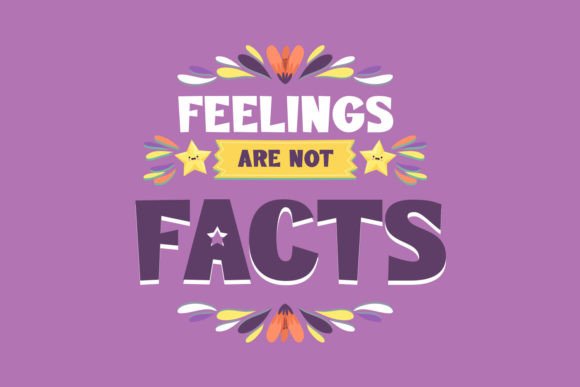
Introducing Triple Disco Font: The Ultimate Display Font for Bold Statements
In the world of typography, fonts play a crucial role in conveying messages and making a lasting impression. When it comes to making a bold statement, a dynamic display font is essential. This is where Triple Disco Font comes into play. Designed specifically in uppercases, Triple Disco is a powerful and confident font that exudes impact and authority. In this article, we will explore the features and benefits of Triple Disco Font and why it’s the perfect choice for your next design project.
The Power of Triple Disco Font
Triple Disco Font is a bold and dynamic display font that is designed to make a statement. Its bold weight and confident demeanor make it perfect for headlines, titles, and any other text that needs to stand out. Each letter in the font is carefully crafted to be distinct and prominent, ensuring that your message is conveyed with clarity and authority.
One of the key features of Triple Disco Font is its low contrast between the thick and thin strokes. This gives the font a solid and uniform appearance, making it perfect for use in a variety of design applications. Whether you’re creating a poster, brochure, or website, Triple Disco Font is sure to make a lasting impression.
Key Features of Triple Disco Font
- Bold and Dynamic Design: Triple Disco Font is designed to make a bold statement. Its bold weight and confident demeanor make it perfect for headlines and titles.
- Uppercase Design: The font is designed specifically in uppercases, making it perfect for use in titles, headings, and other applications where a bold and confident font is needed.
- Low Contrast: The low contrast between the thick and thin strokes gives the font a solid and uniform appearance, making it perfect for use in a variety of design applications.
- Clear and Authoritative: Each letter in the font is carefully crafted to be distinct and prominent, ensuring that your message is conveyed with clarity and authority.
Benefits of Using Triple Disco Font
There are many benefits to using Triple Disco Font in your design projects. Here are just a few:
- Makes a Lasting Impression: The bold and dynamic design of Triple Disco Font makes it perfect for use in headlines and titles, where you want to make a lasting impression on your audience.
- Perfect for a Variety of Design Applications: The font’s solid and uniform appearance makes it perfect for use in a variety of design applications, including posters, brochures, websites, and more.
- Easily Readable: Despite its bold design, Triple Disco Font is easily readable, even at small sizes.
- Versatile: The font’s confident and authoritative demeanor makes it perfect for use in a variety of contexts, from advertising and marketing to editorial and publishing.
How to Use Triple Disco Font
Using Triple Disco Font is easy. Here are a few tips to get you started:
- Use it for Headlines and Titles: The font’s bold and dynamic design makes it perfect for use in headlines and titles.
- Experiment with Different Sizes: The font’s clear and authoritative design makes it easily readable at a variety of sizes.
- Pair it with Other Fonts: Triple Disco Font pairs well with a variety of other fonts, making it perfect for use in a variety of design applications.
In conclusion, Triple Disco Font is a powerful and dynamic display font that is perfect for making a bold statement. Its bold weight, confident demeanor, and solid and uniform appearance make it perfect for use in a variety of design applications. Whether you’re creating a poster, brochure, website, or any other design project, Triple Disco Font is sure to make a lasting impression.
- What is Triple Disco Font?: Triple Disco Font is a dynamic display font designed in uppercases to make a bold statement.
- What are the key features of Triple Disco Font?: The font’s key features include its bold and dynamic design, uppercase design, low contrast, and clear and authoritative demeanor.
- What are the benefits of using Triple Disco Font?: The benefits of using Triple Disco Font include its ability to make a lasting impression, its versatility, and its ease of readability.